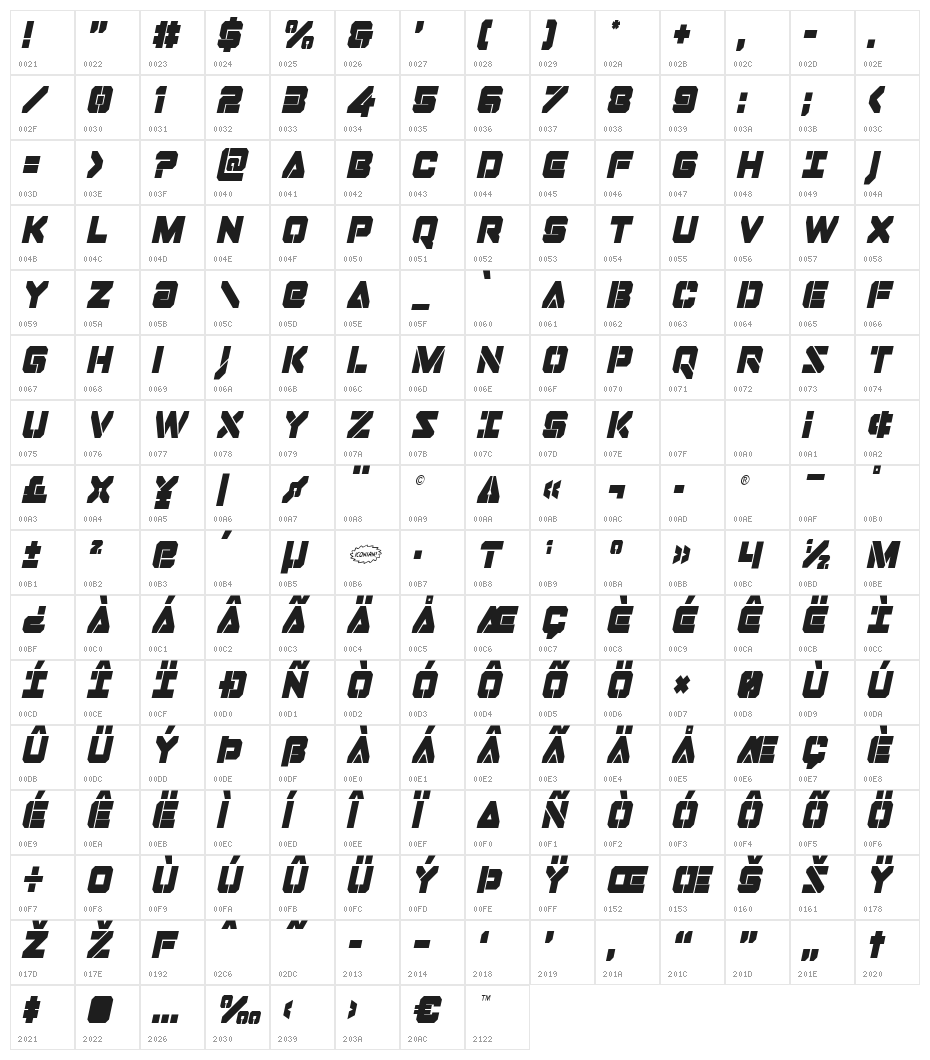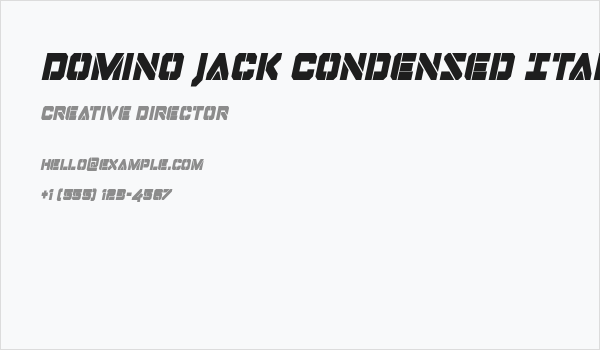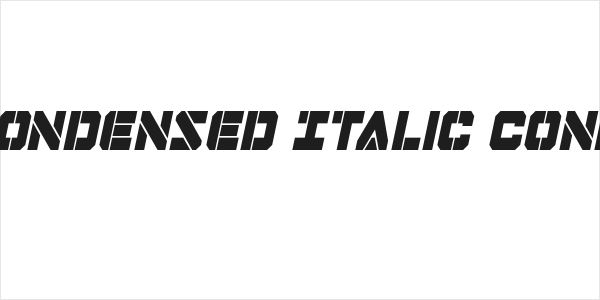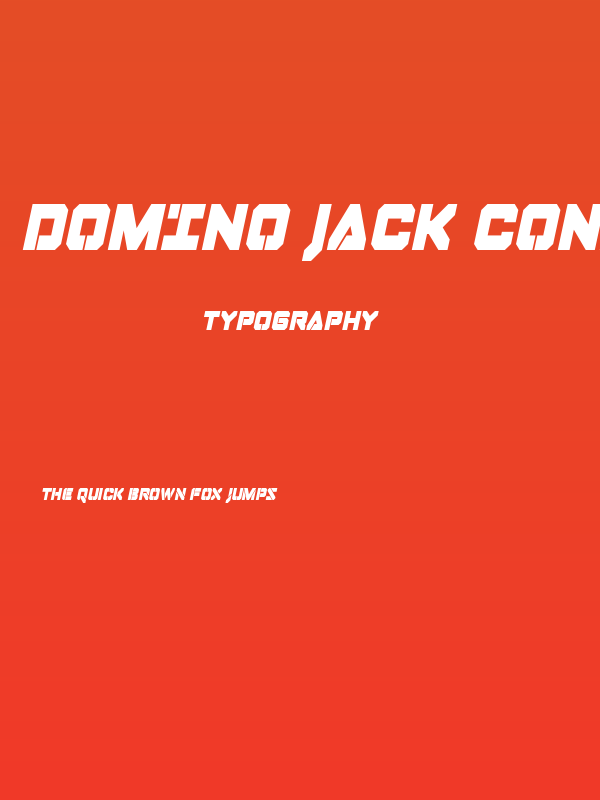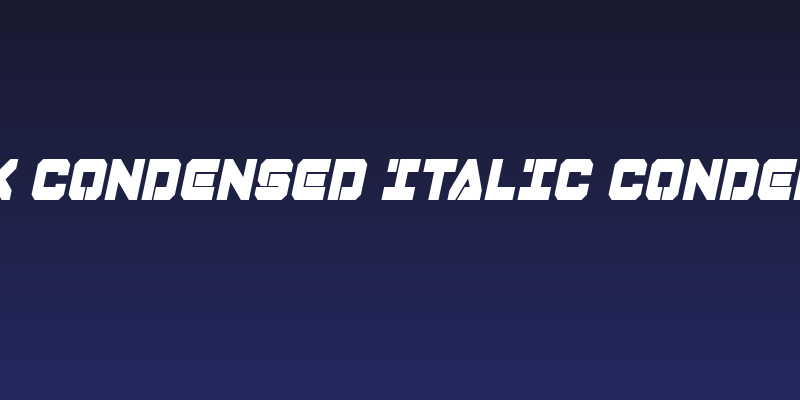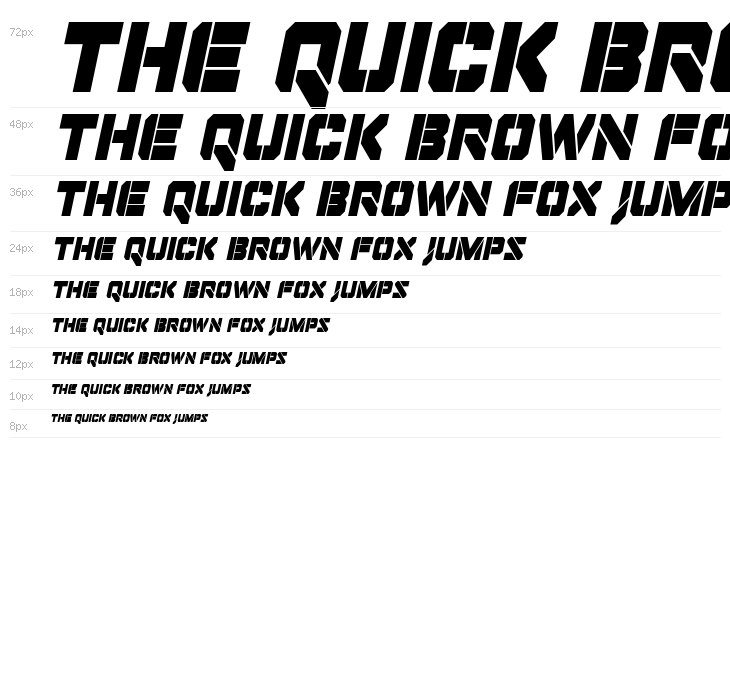
Domino Jack Condensed Italic Font
Domino Jack Condensed Italic Description
This font features a bold, condensed style with a distinct italic slant, giving it a dynamic and energetic appearance. The characters are blocky and geometric, with sharp angles and clean lines that create a sense of movement and urgency. The uppercase letters are uniform in height, while the numbers and special characters maintain the same bold and angular design. The font's condensed nature allows for efficient use of space, making it suitable for impactful headlines and attention-grabbing text. Its unique style is both modern and slightly futuristic, making it versatile for various design applications.
| Proposed Projects | Ideal for sports branding, dynamic posters, modern advertisements, and futuristic designs. |